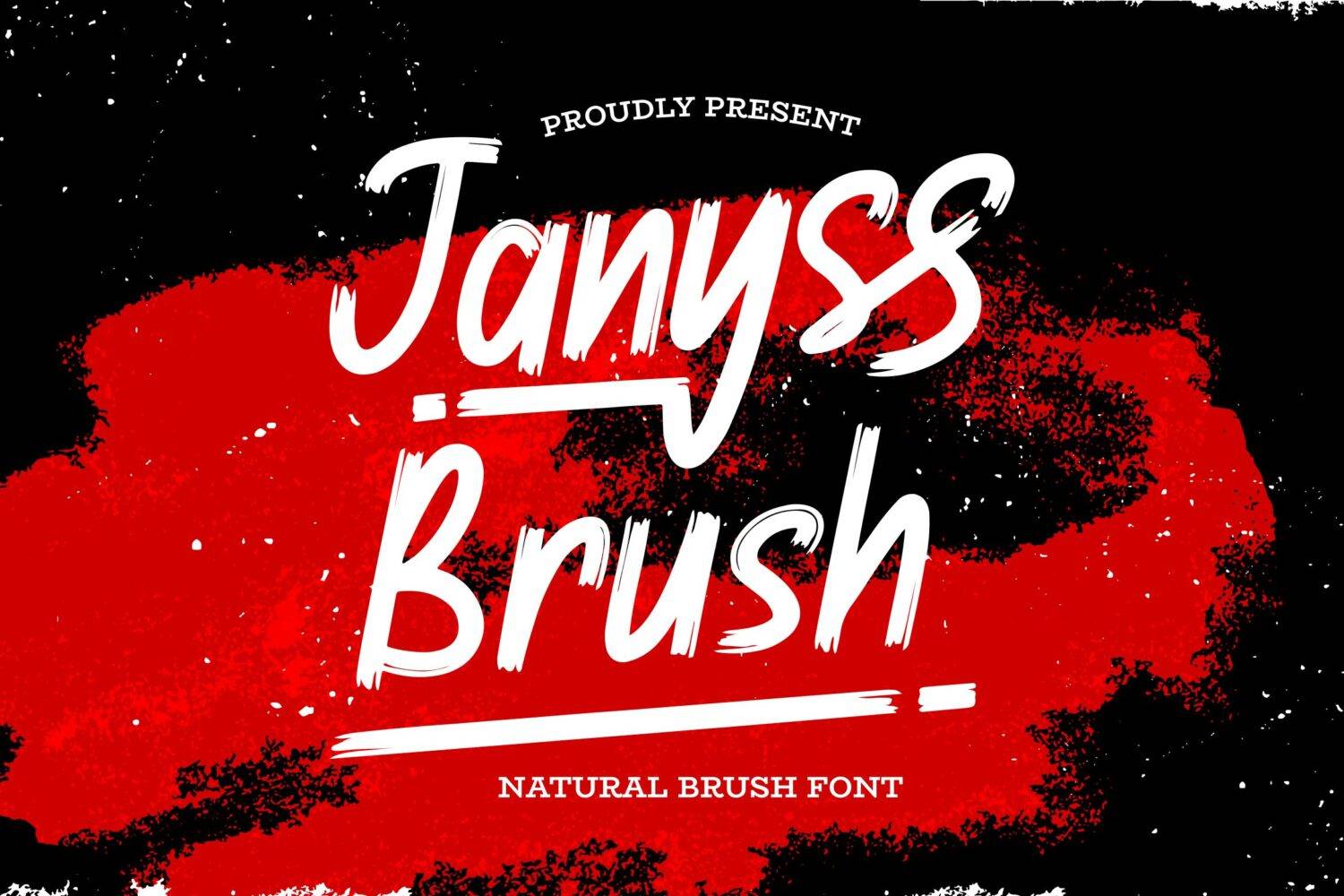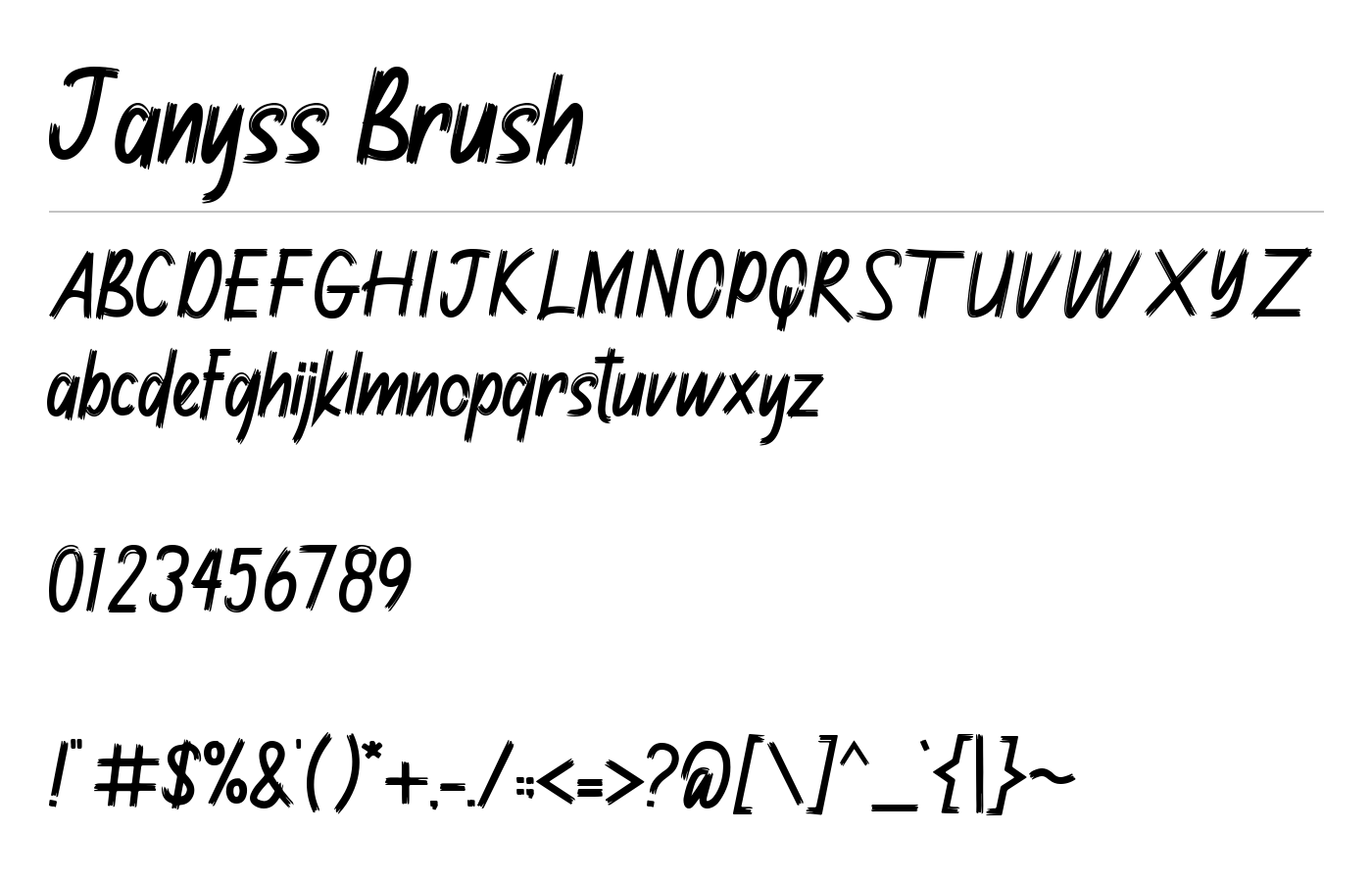
Janyss Brush is an expressive brush script font characterized by its uneven, hand-painted strokes and dynamic, slightly condensed letterforms. Its casual, energetic style with medium contrast and rough edges makes it perfect for adding a personal, artistic touch to creative projects, logos, packaging, and headlines that need a lively, informal vibe. This font works well where a handcrafted, friendly personality is desired, while maintaining clear readability.
Janyss Brush Font
About Janyss Brush Font